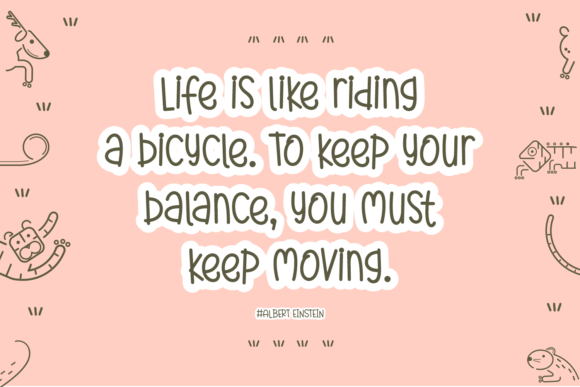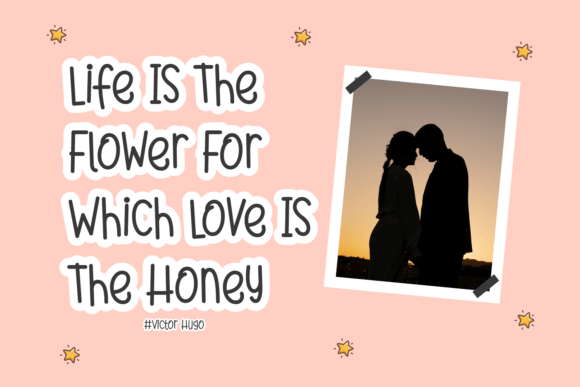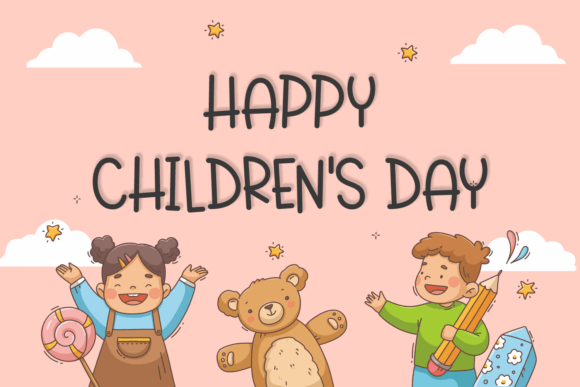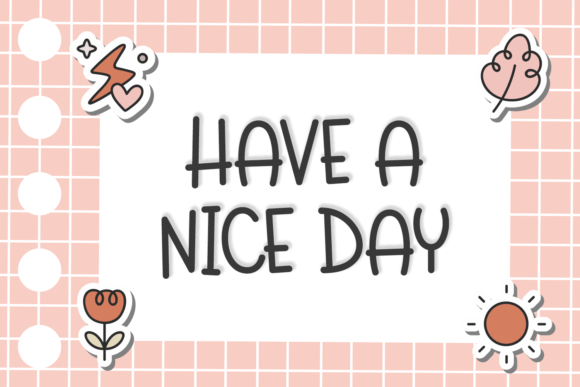
The Dream Crawler Font: A Playful Twist for Your Designs
Have you ever been in the middle of a design project, and suddenly, you just can’t seem to find the right font? I recall a recent experience where I was working on a whimsical children’s book cover, and my usual go-to fonts just weren’t cutting it. The design needed something fresh, playful, and imaginative. That’s when I stumbled upon the Dream Crawler font, and it completely transformed my project!
First Impressions: A Delightful Display Font
Dream Crawler is a playful display font that combines the charm of handwritten lettering with a lighthearted and carefree vibe. Each letter is crafted with fluid strokes and playful curves, evoking a sense of creativity and spontaneity. This font is perfect for projects that aim to capture the spirit of childhood or spark imagination.
- ✨ The whimsical and imaginative style that adds a touch of personality to any design
- ✅ The handwritten style that adds warmth and authenticity, making it feel like each letter was crafted with pen and paper
- 🎉 The font’s versatility, making it suitable for various design projects, from posters and invitations to branding and social media graphics
While Dream Crawler is an excellent font, there are a few things to keep in mind:
- ⚠️ The font may not be suitable for body text due to its playful and cursive nature.
- 🤔 Some letters may require manual kerning for optimal spacing.
The Designer Inspiration Behind Dream Crawler
The Dream Crawler font was inspired by the whimsical world of childhood imagination. The designer aimed to create a font that captures the playful and carefree spirit of childhood, while also being versatile and easy to use. The result is a delightful font that’s perfect for designers, crafters, and creative hobbyists looking to add a touch of whimsy and personality to their designs.
Q: What type of projects is Dream Crawler suitable for?
A: Dream Crawler is perfect for projects that aim to capture the spirit of childhood or spark imagination, such as children’s book covers, posters, invitations, branding, and social media graphics.